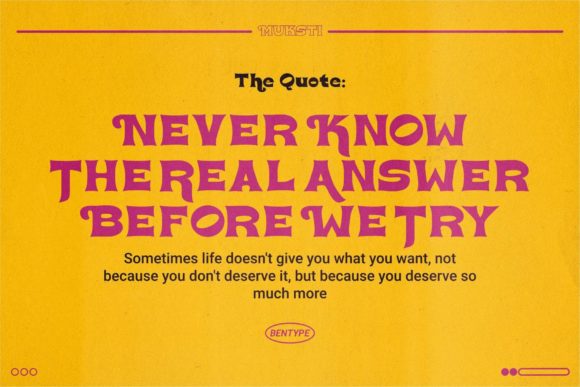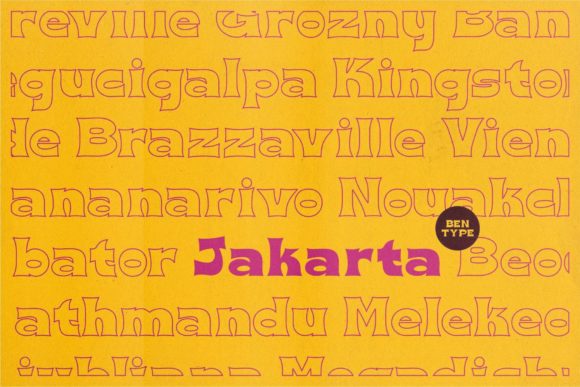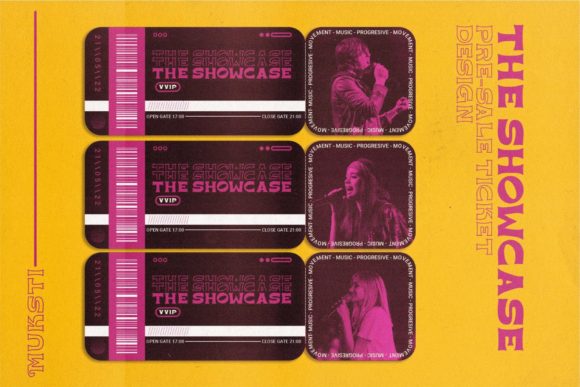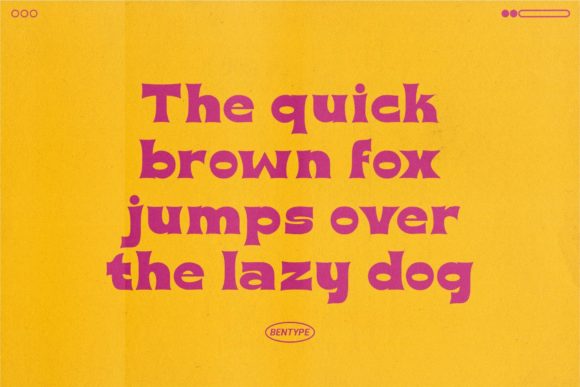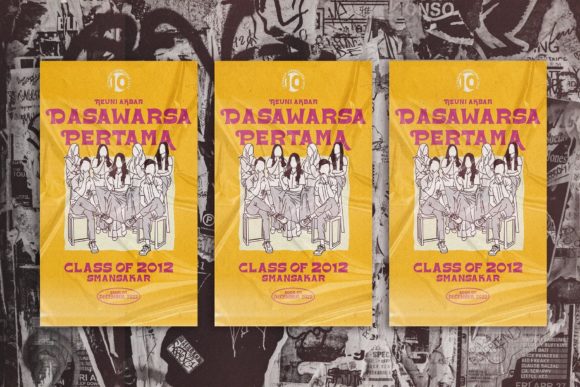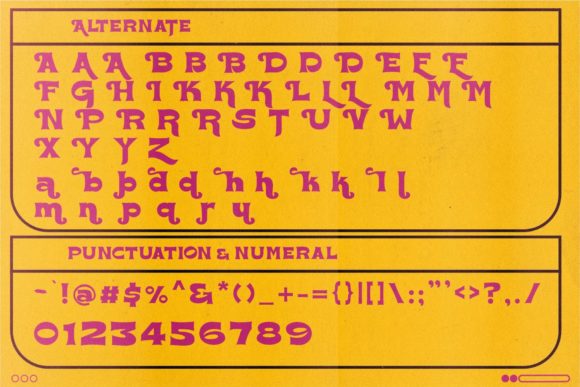
Introduction to Muksti Font
Muksti is a cool and wavy designed display font.
Muksti Font offers exceptional quality and versatility, making it a valuable addition to your design toolkit. Whether you’re creating for personal projects or commercial use, Muksti Font delivers professional results.